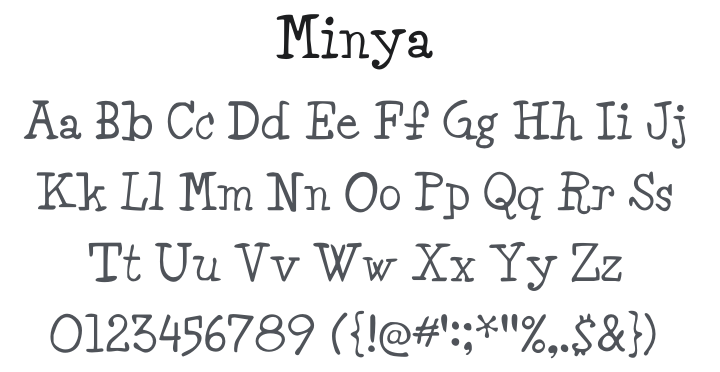
Minya Font
About Minya
Minya is a makeshift, slipshod typewriter display typeface — hand-scrawled letterforms that mimic the look of a faux-typewriter style, deliberately rough and uneven as if banged out on a machine with misaligned keys. Its charming imperfection gives it a personal, handmade warmth. Perfect for casual correspondence aesthetics, zine layouts, retro editorial, greeting card designs, and any project needing an endearingly lo-fi, handwritten-typewriter personality.